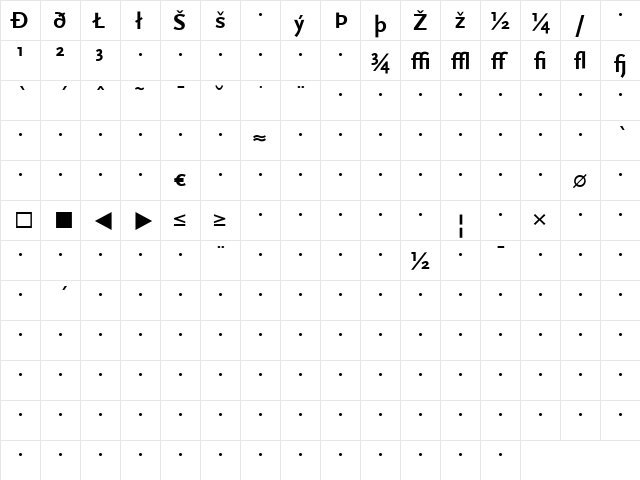
Scala Sans Bold
Design Context for Scala Sans Typeface
Scala Sans is a composed and adaptable typeface that performs quietly and consistently across a wide range of design contexts. Its bold stroke weight gives it real presence on the page.